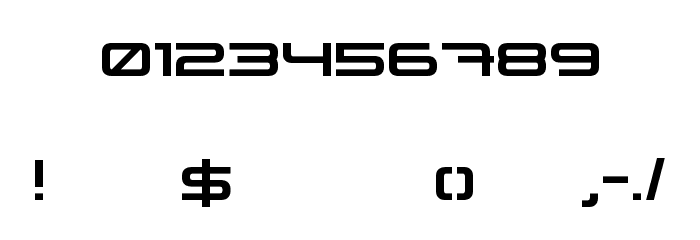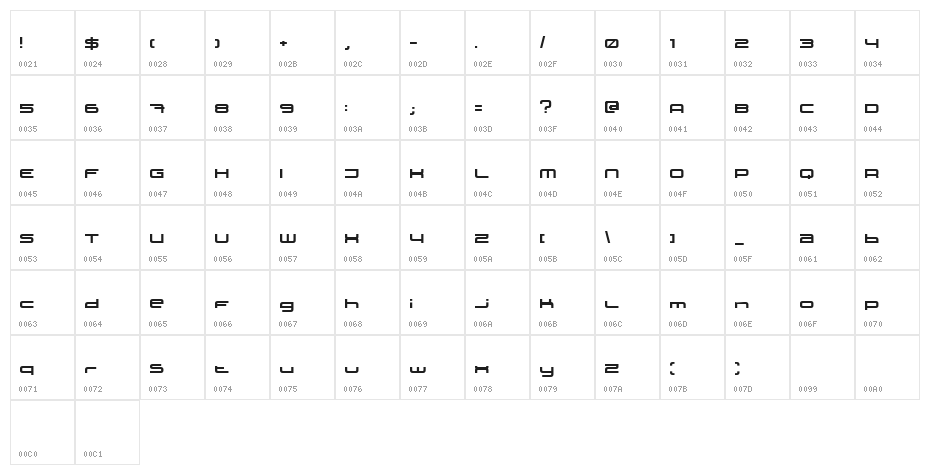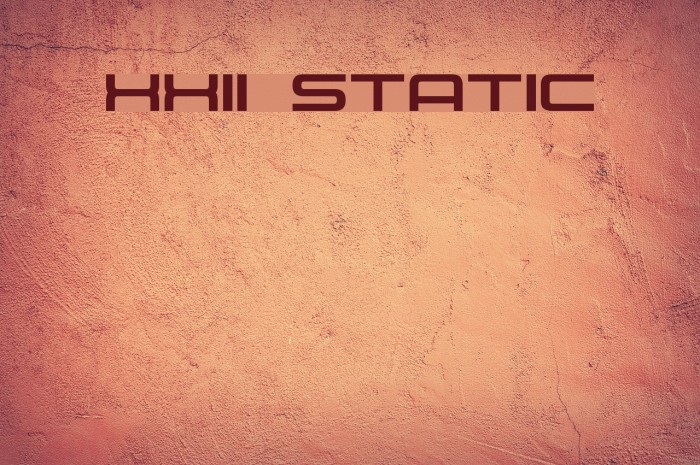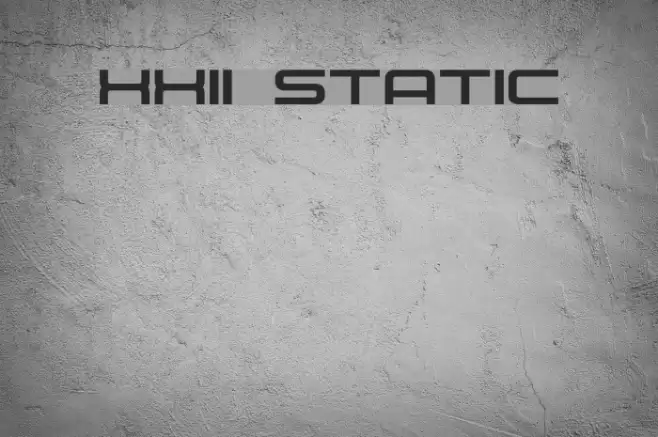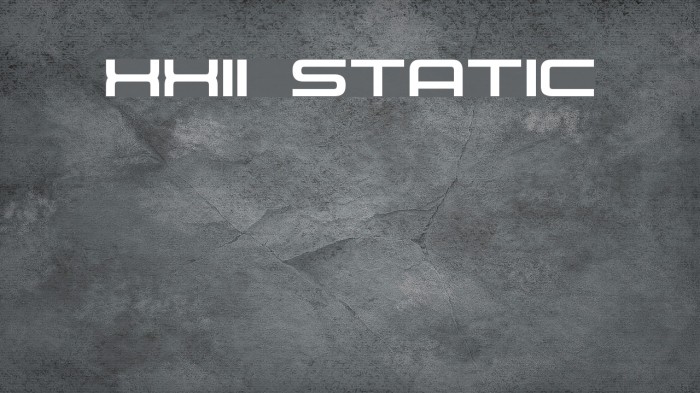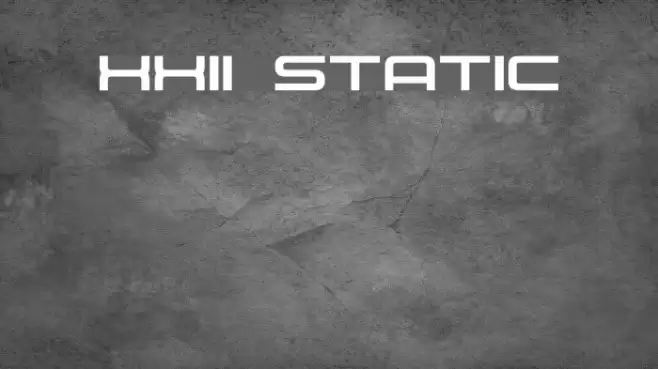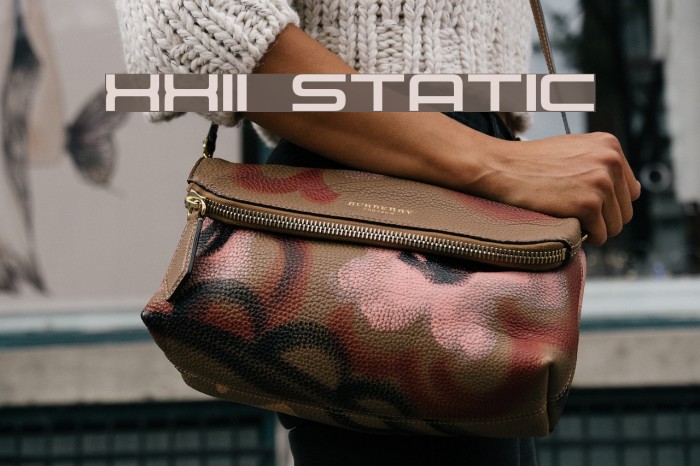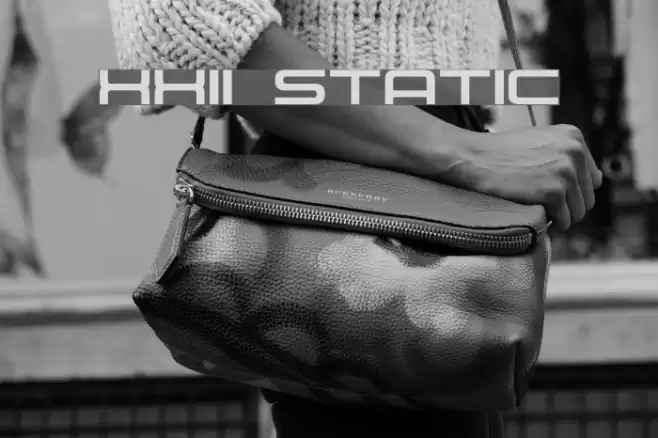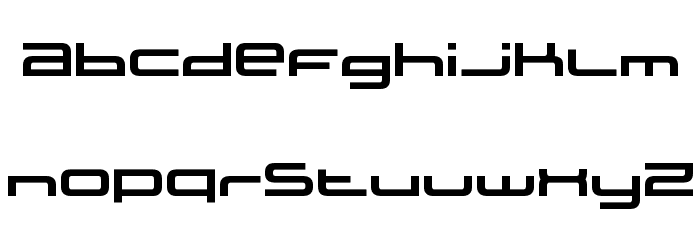
XXII STATIC Font
XXII STATIC Description
This font features a modern, geometric design with a strong emphasis on clean lines and a futuristic aesthetic. The characters are uniformly structured, with a consistent stroke width that gives the font a cohesive and balanced appearance. The uppercase letters are bold and striking, while the lowercase letters maintain a similar style with slightly softer edges. The numerals are clear and easily distinguishable, complementing the overall design. Special characters are included, maintaining the font's unique style. This font is ideal for projects that require a contemporary and tech-inspired look.
Use CaseHeadlines, Logos, Digital Interfaces
Proposed ProjectsIdeal for tech branding, digital interfaces, video game design, and modern advertising.